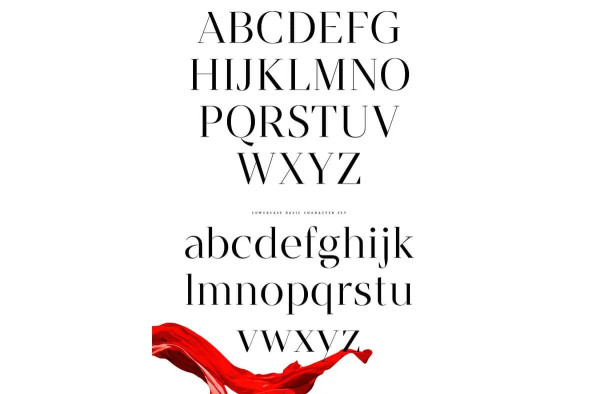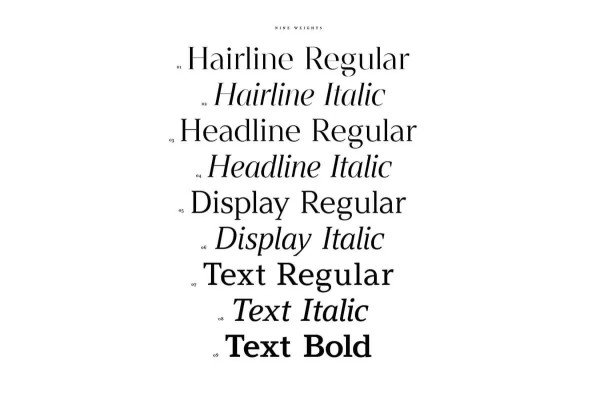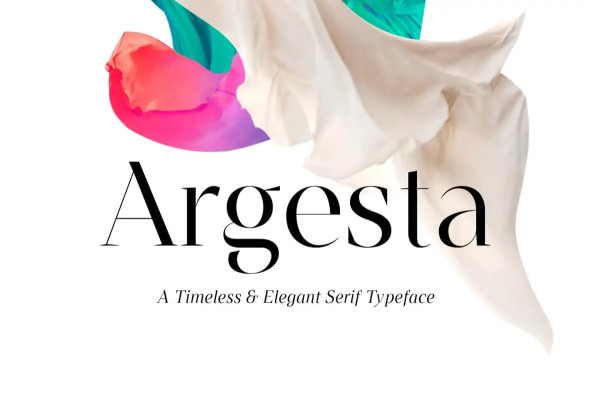
Argesta Font
Argesta Font is a powerful neoclassical serif font family with high contrast. The ideas for this font has a wide range of reference, from vintage, classic, until the modern era, making it the perfect typeface for an understated, modern, sophisticated look. Stylistically,
Argesta Font is directly inspired by haute couture and it is well-suited to classy branding identity, magazine design, or for luxury product packaging design. Argesta comes in 9 styles, ranging from Hairline to Text, and includes matching true italics.